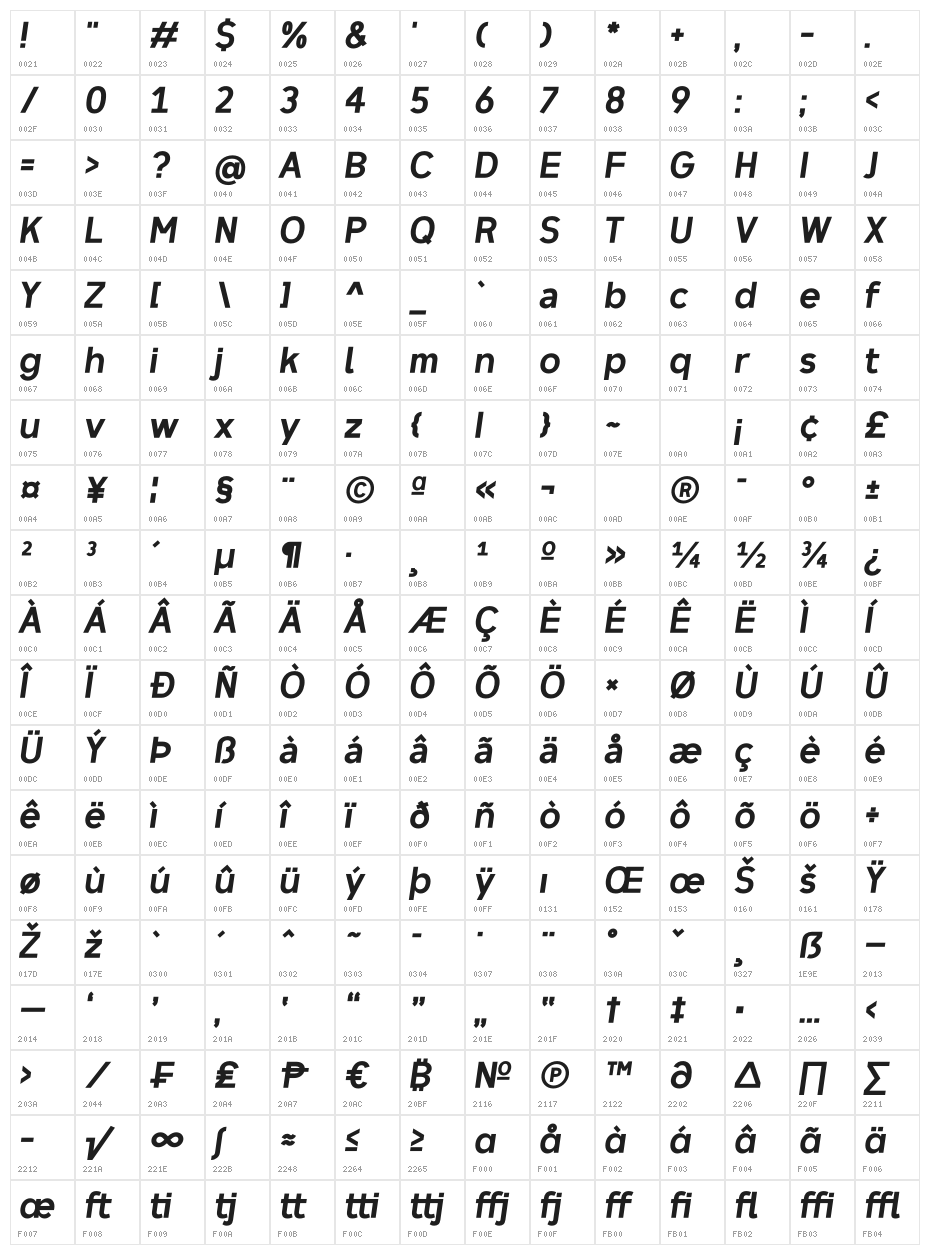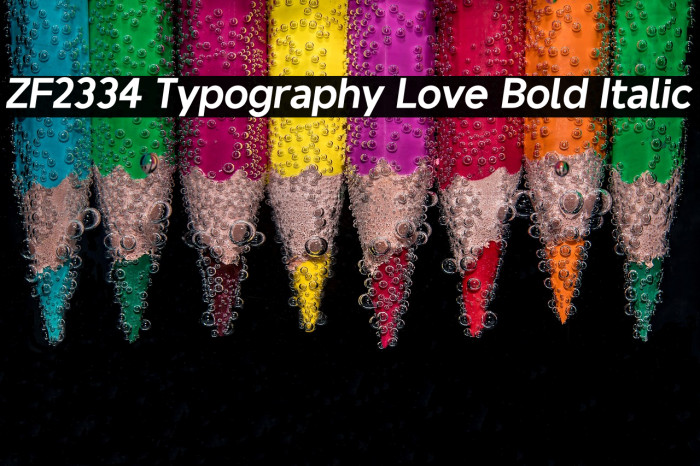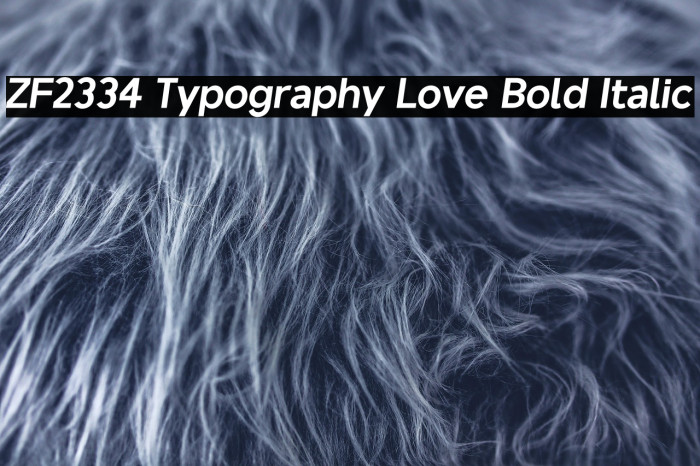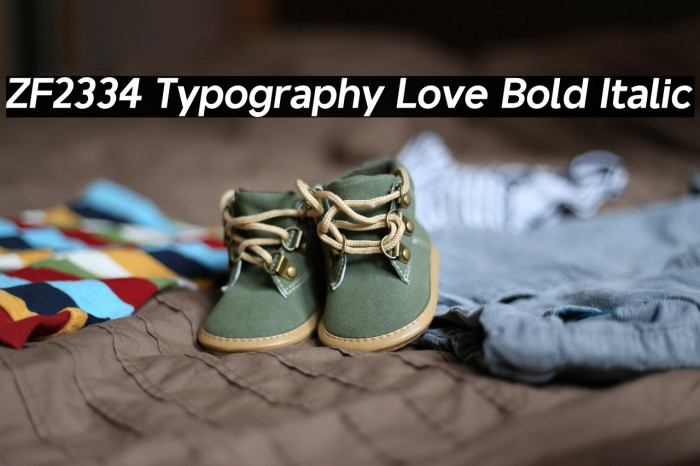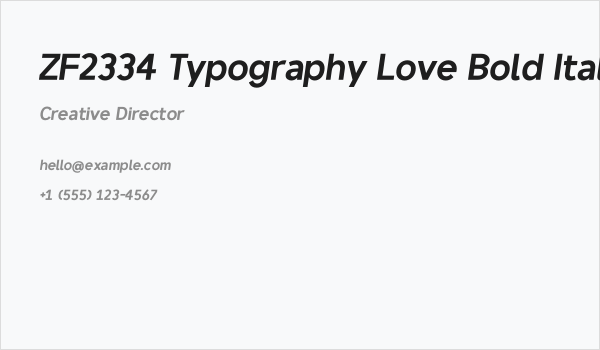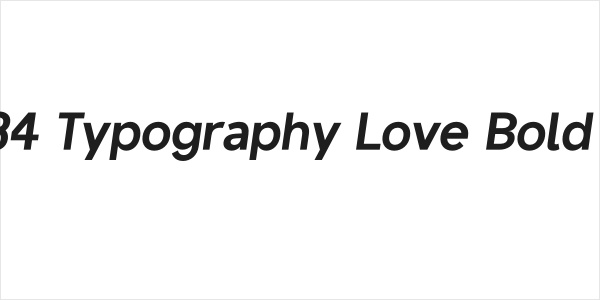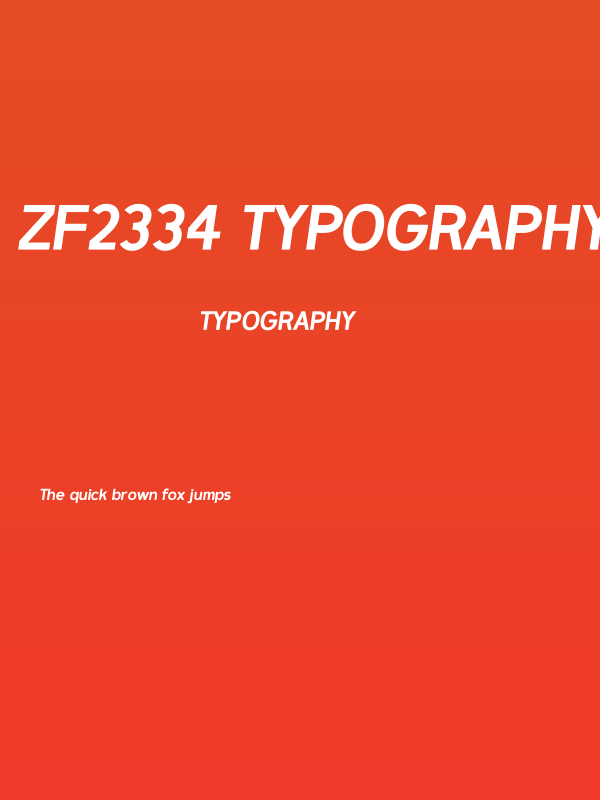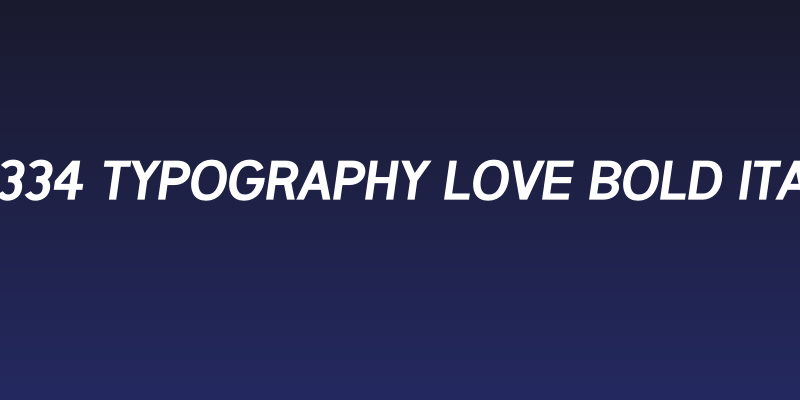
ZF2334 Typography Love Bold Italic Font
ZF2334 Typography Love Bold Italic Description
This font features a bold and italic style, combining strength with elegance. The characters are well-defined with a slight slant, giving a dynamic and modern appearance. The strokes are thick, providing a strong presence, while the italic angle adds a touch of sophistication. The overall design is clean, making it suitable for various applications where readability and impact are essential.
| Proposed Projects | Ideal for branding, headlines, posters, and advertising where a strong and elegant impression is needed. |